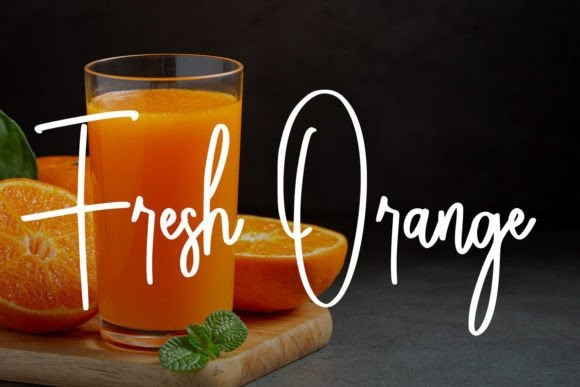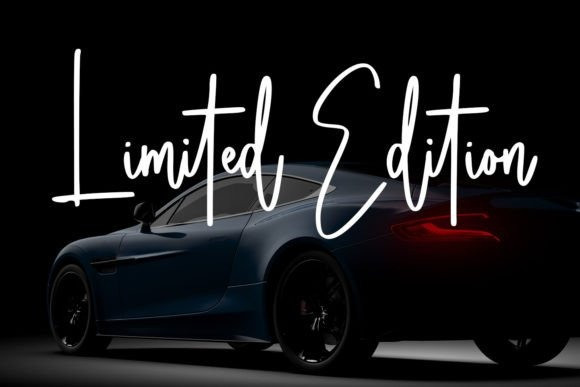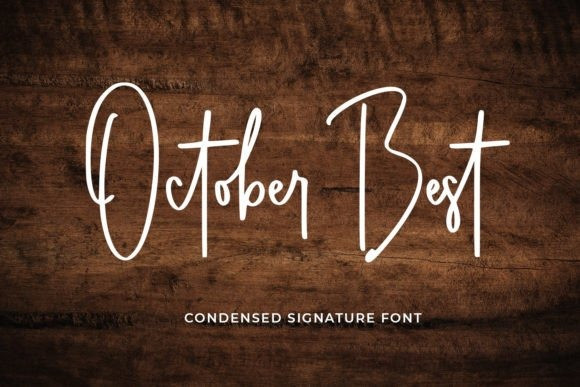
October Best Handwriting Font
October Best Handwriting Font is the unique signature font in a condensed style.It is great for branding, packaging, wedding invitation, logos, t-shirt designs, tote bag designs, cards, banners, social media, and more. This font is PUA encoded, which means you can access all of the glyphs and swashes with ease!